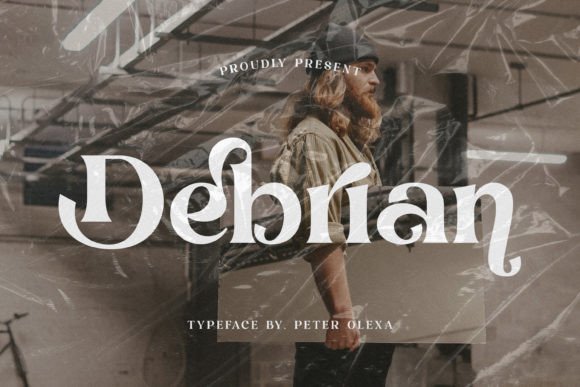
Dive into the world of Debrian, a sophisticated and refined serif font that will captivate your audience with its timeless appeal. Designed by JumboDesign, this font boasts clean, straight lines and elegant curves, striking a perfect balance between modernity and tradition. The subtle variations in stroke weight add a touch of depth and dimension, creating a sense of harmony and visual interest.
With Debrian, you can effortlessly elevate your creative writing to new heights. Its refined character and classic charm make it the perfect choice for high-end fashion and luxury branding. Whether you're crafting logos, creating marketing materials, or designing websites, Debrian will add a touch of elegance and sophistication to your work.
Unleash your creativity and let Debrian take you on a journey of artistic expression. Its PUA encoding ensures effortless access to a wide range of glyphs and ligatures, empowering you to add intricate details and flourishes to your designs. Experience the limitless possibilities of Debrian and transform your creative vision into a captivating reality.